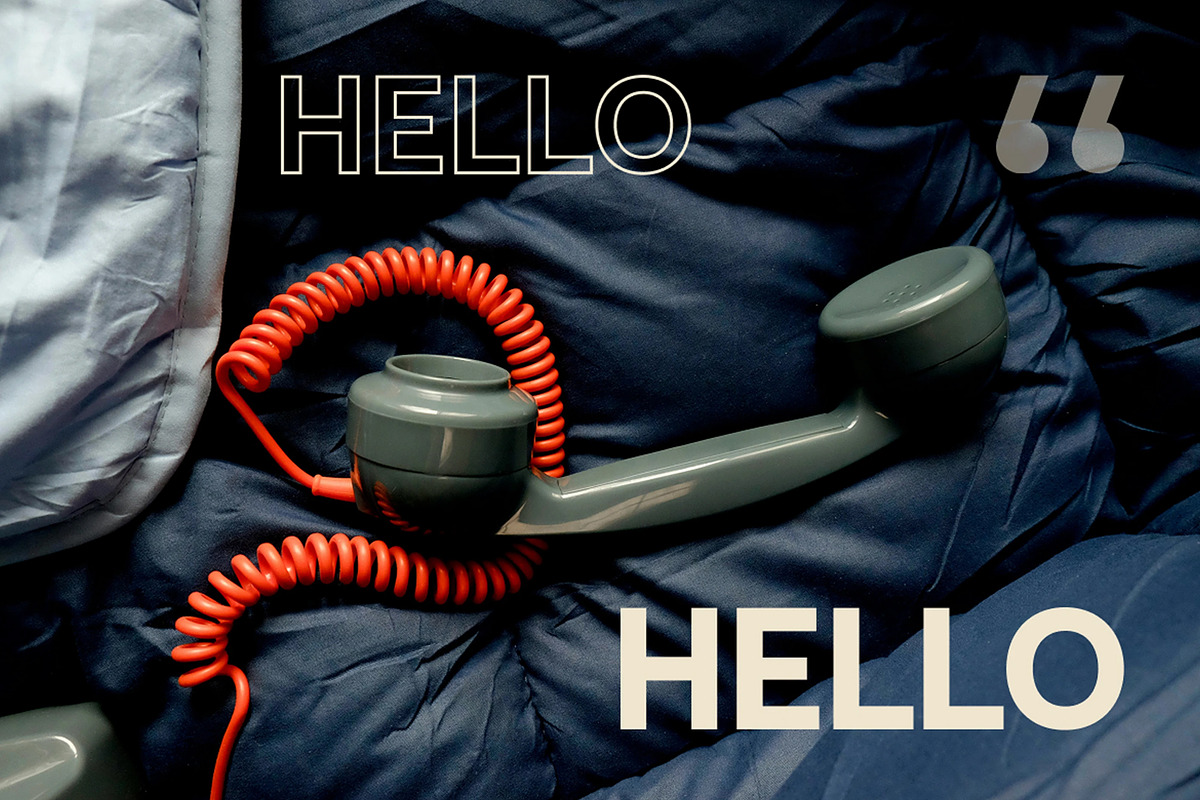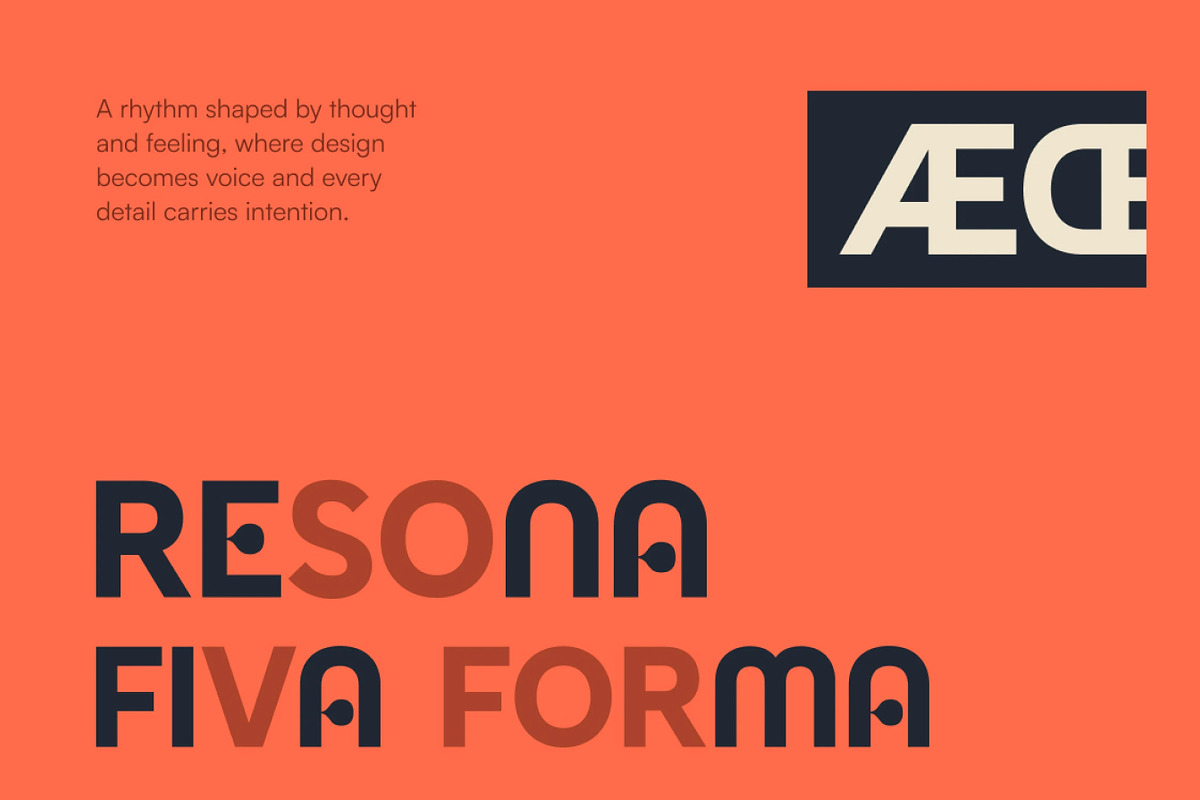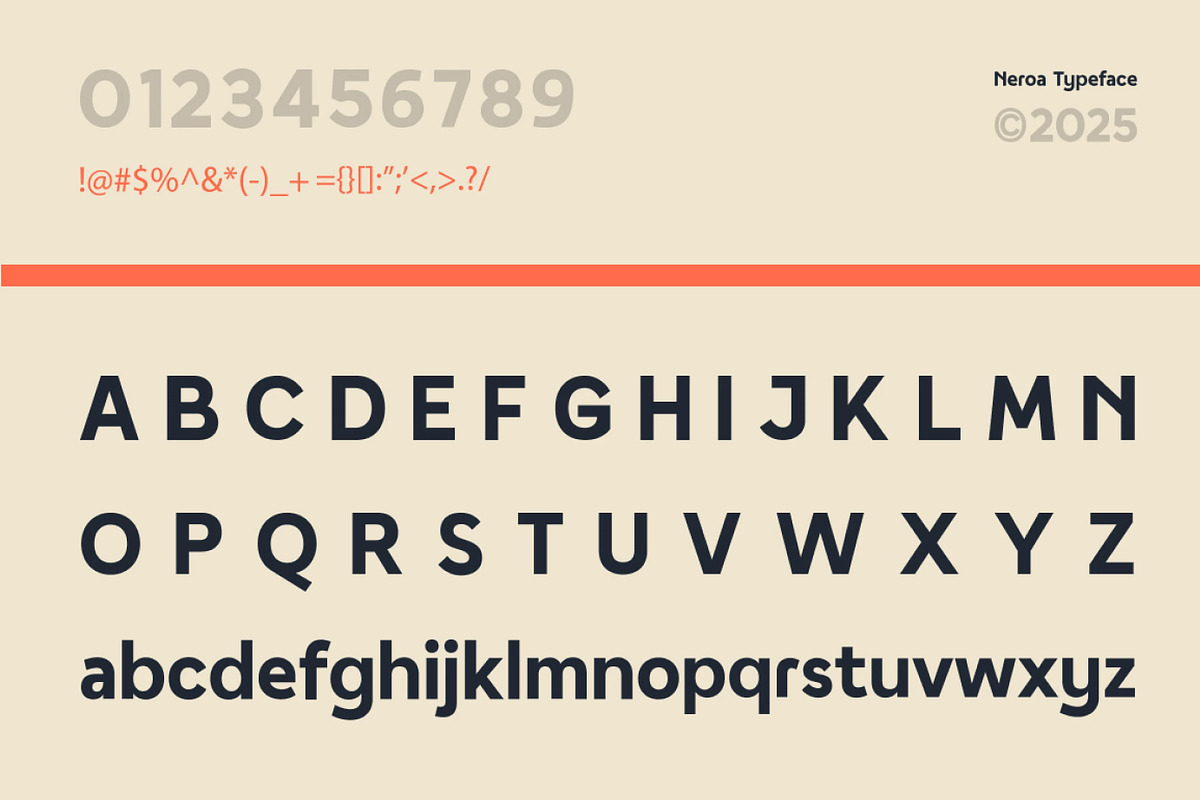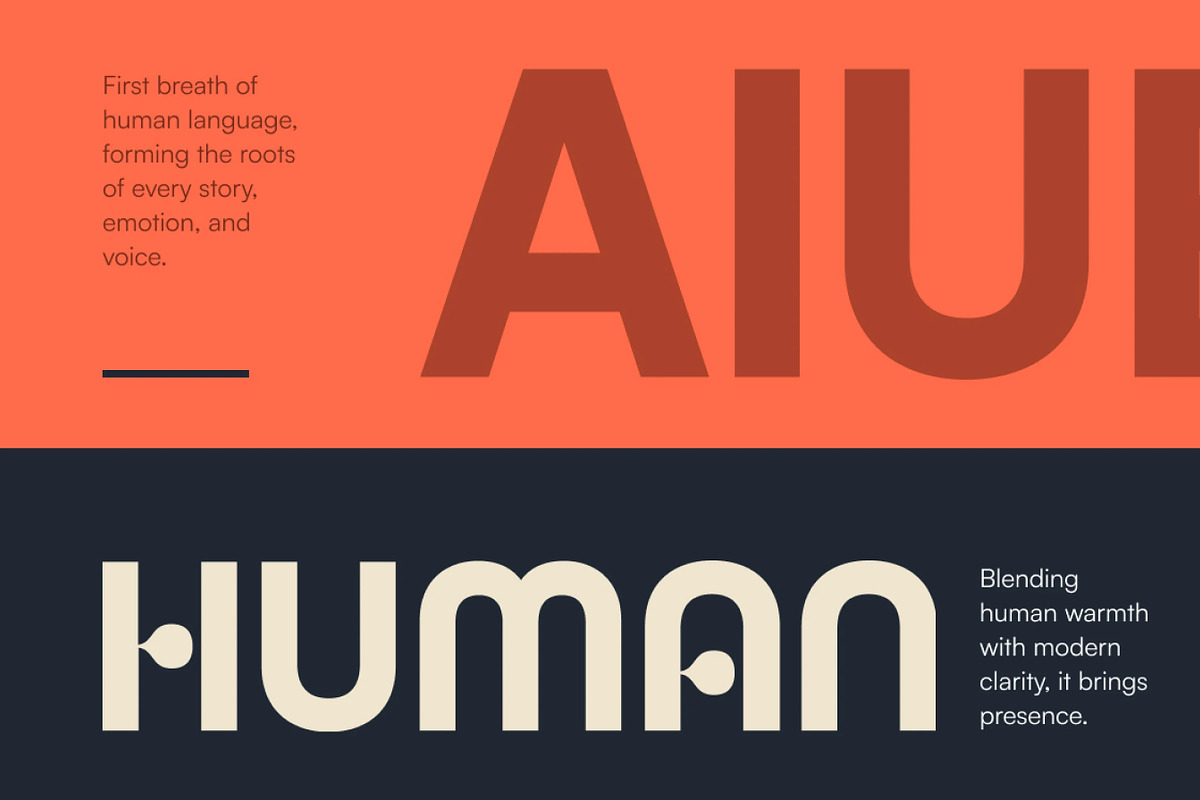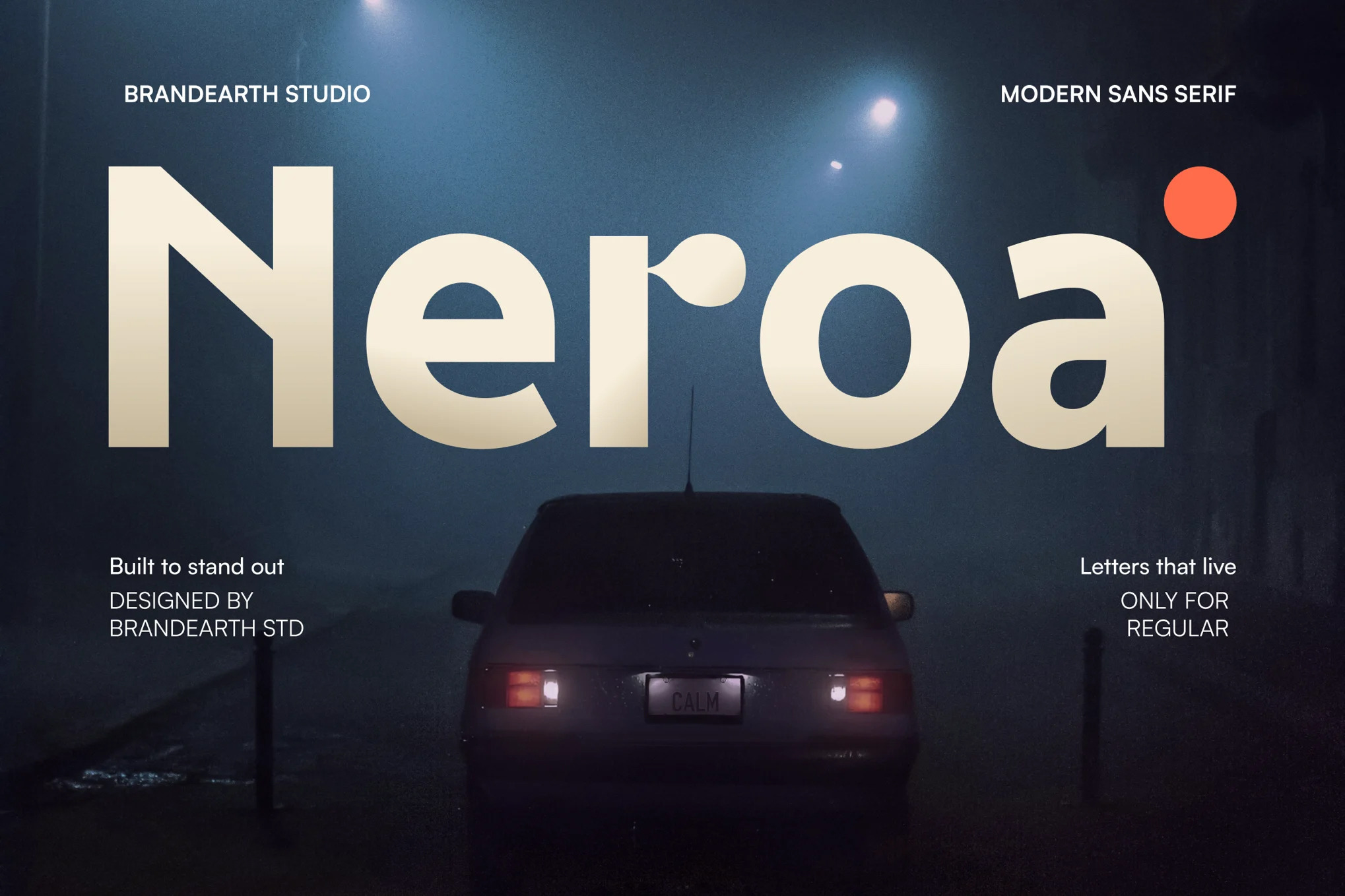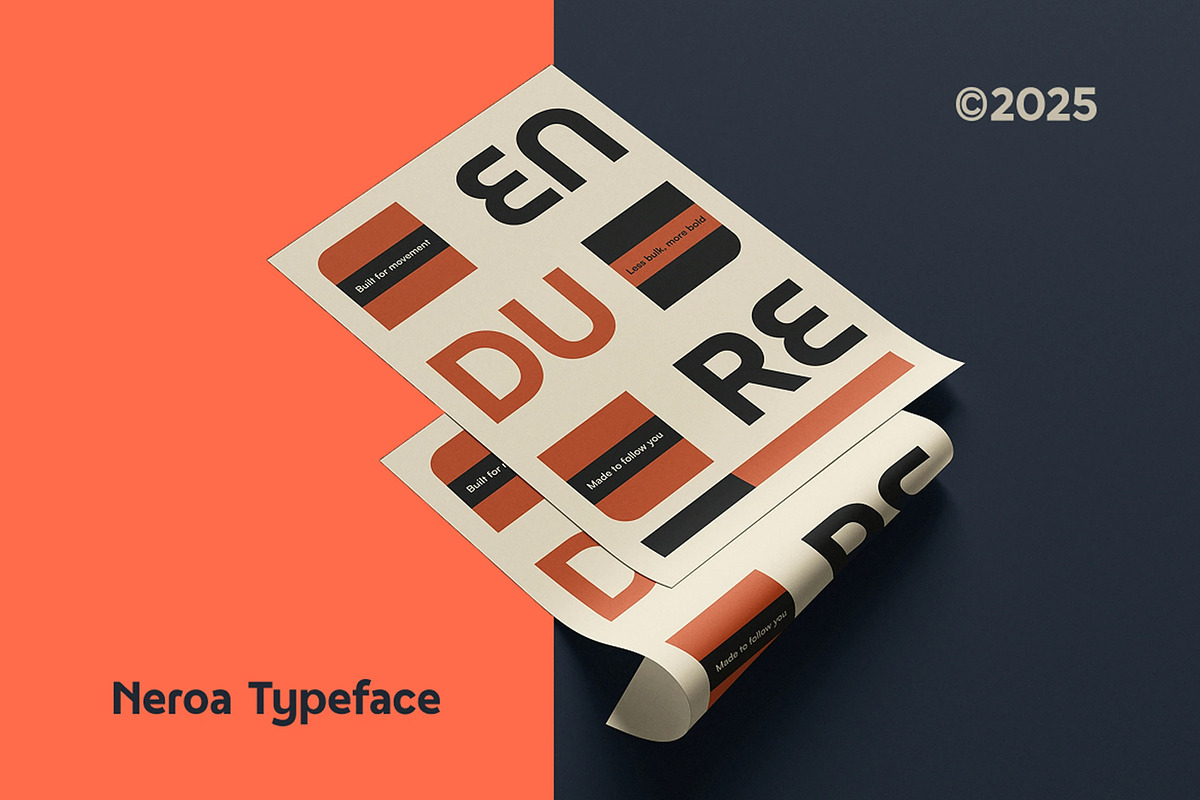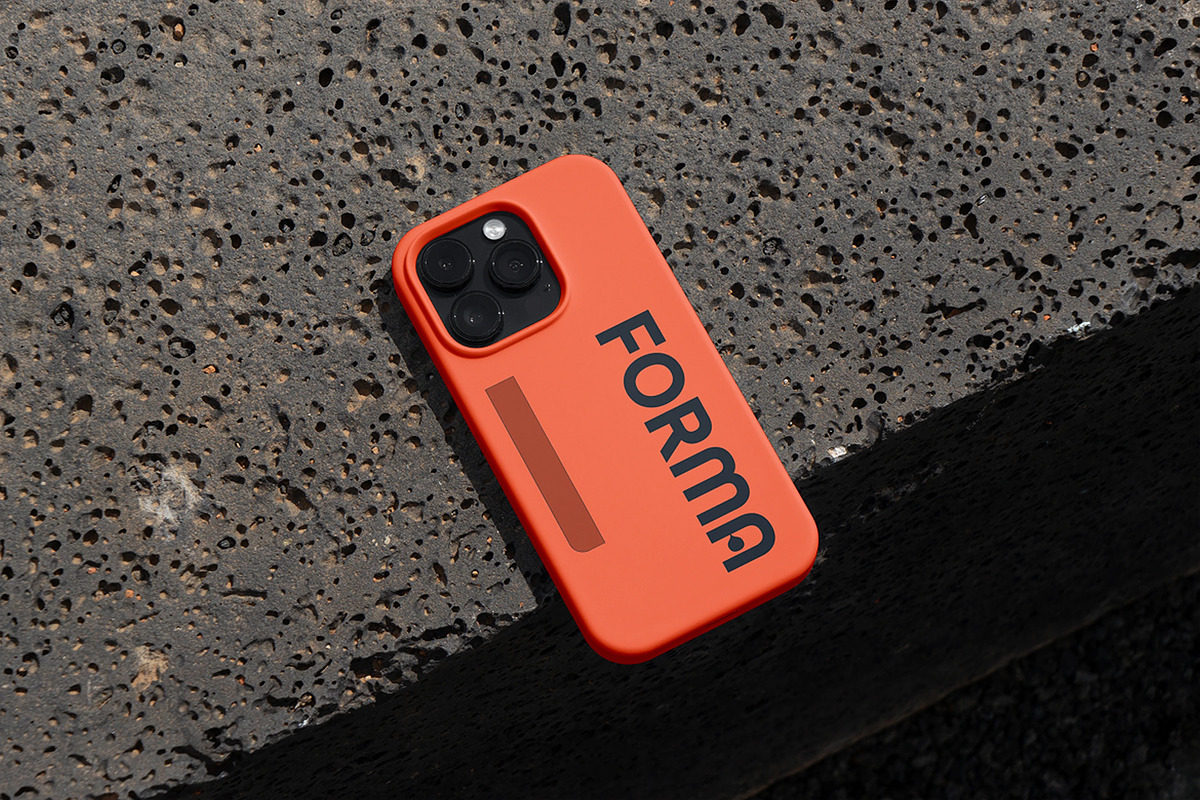
Neroa – Modern Sans Serif Font
Neroa is a geometric sans serif font featuring clean, modern letterforms with uppercase and lowercase characters, ligatures, stylistic alternates, and multilingual support. Designed for clarity and versatility, it is suitable for editorial layouts, product packaging, UI/UX design, logo design, minimalist compositions, fashion branding, bold headlines, web interfaces, mobile apps, startup presentations, advertising, signage, digital banners, and display typography in both print and digital formats.
The letterforms in Neroa are constructed with rounded geometric curves, sharp terminal cuts, and a structured rhythm that gives the typeface a distinctive, confident character. It features a refined display quality that's perfect for tech branding, editorial titles, minimalist identity systems, and clean digital interfaces.
With its balanced proportions and versatile weight, Neroa bridges the gap between minimalist function and bold visual presence. It delivers a modern, memorable feel while remaining highly legible, making it ideal for luxury branding, startup decks, creative portfolios, and large-scale display typography.
Ligatures & Alternate
Numeral & Punctuations